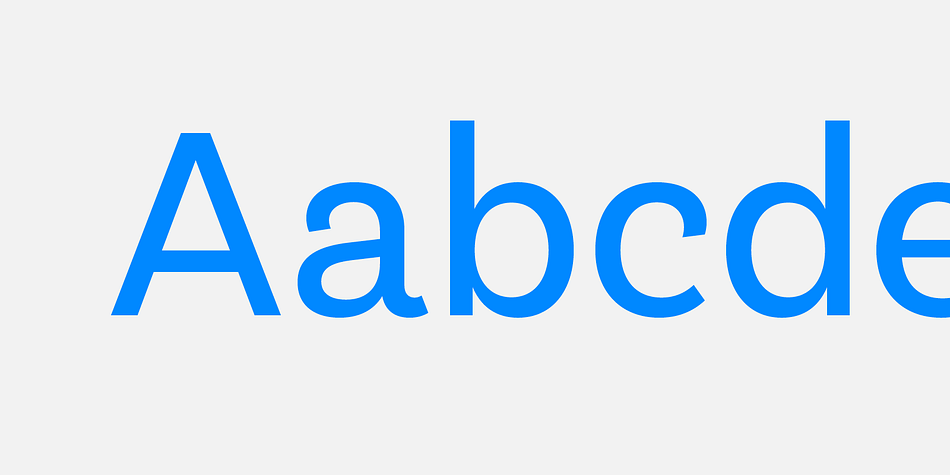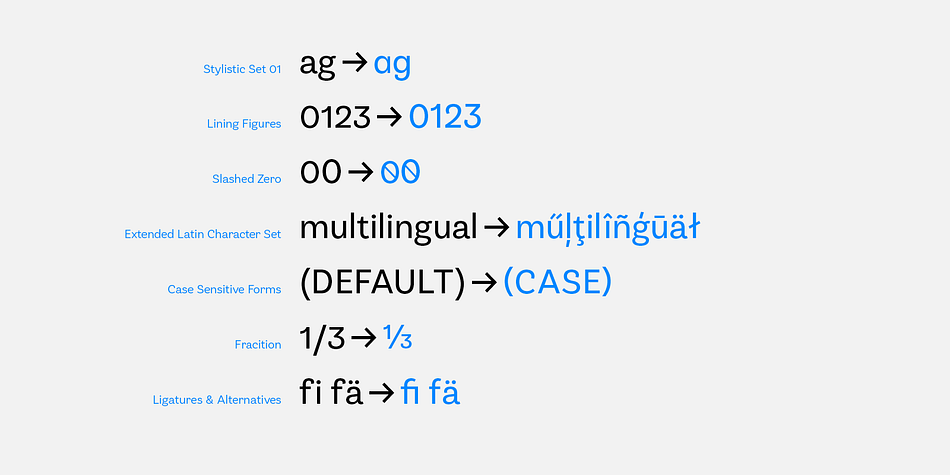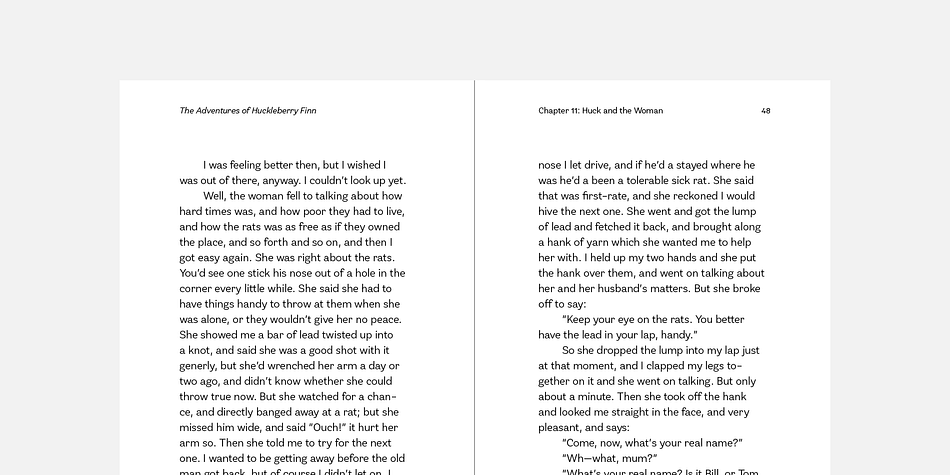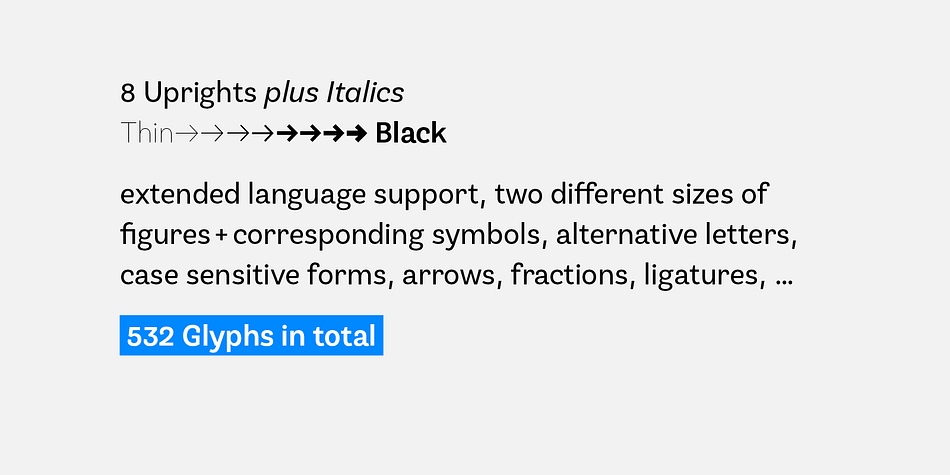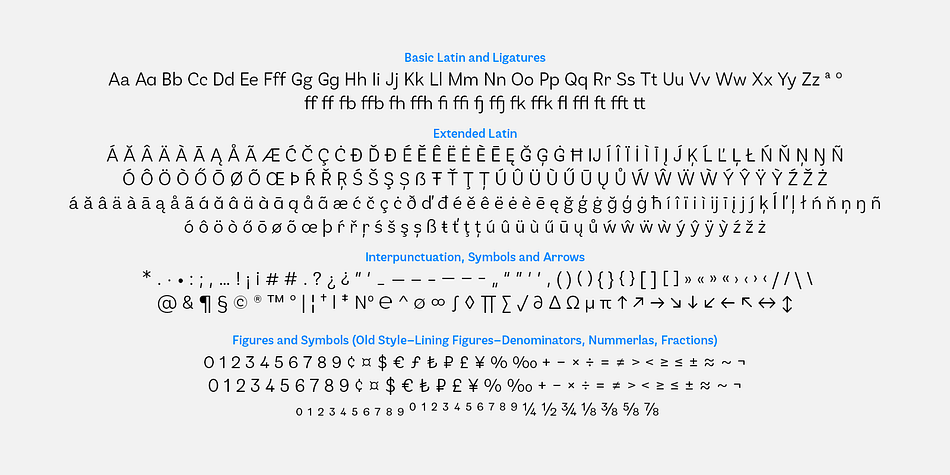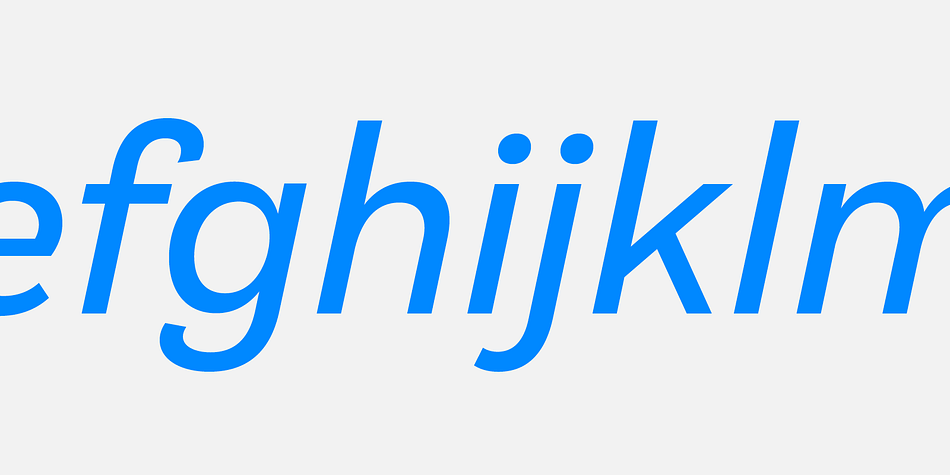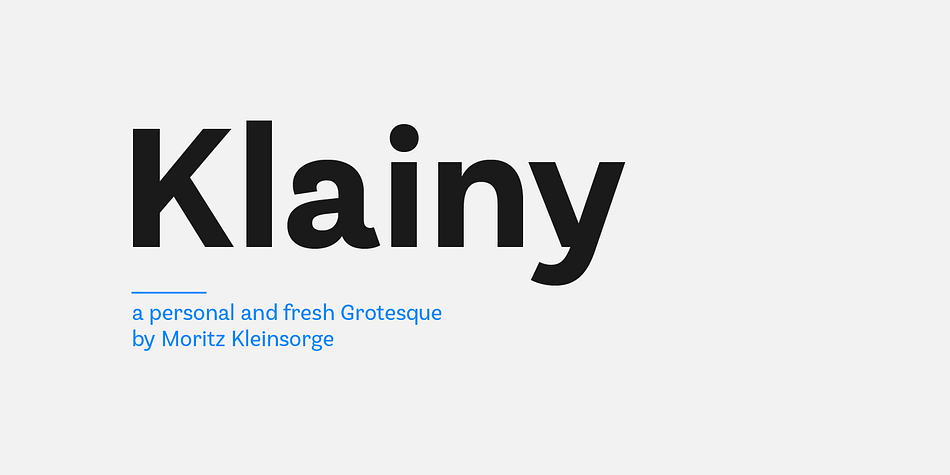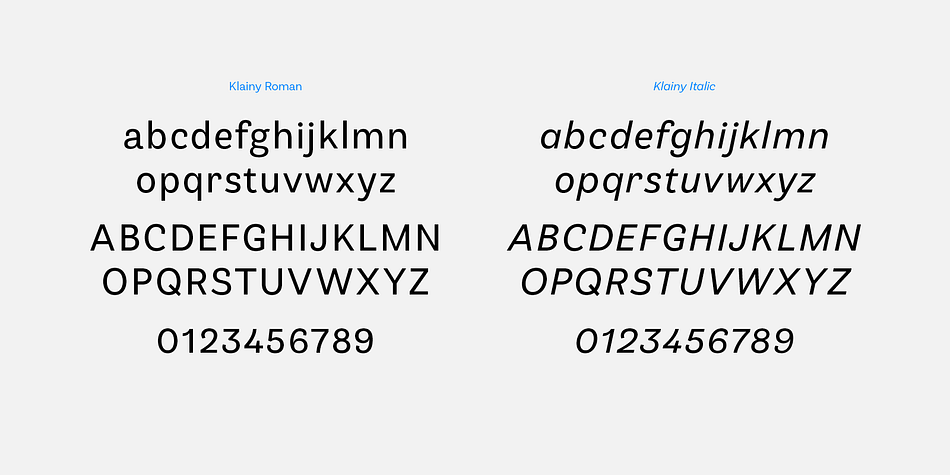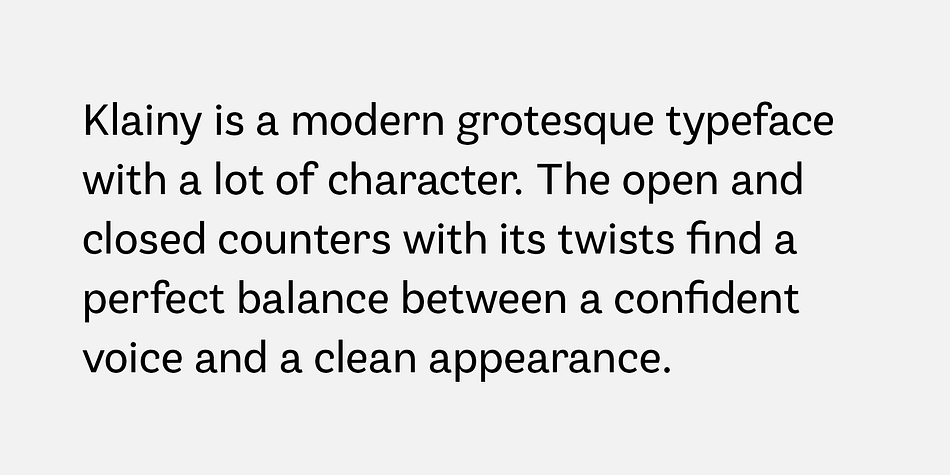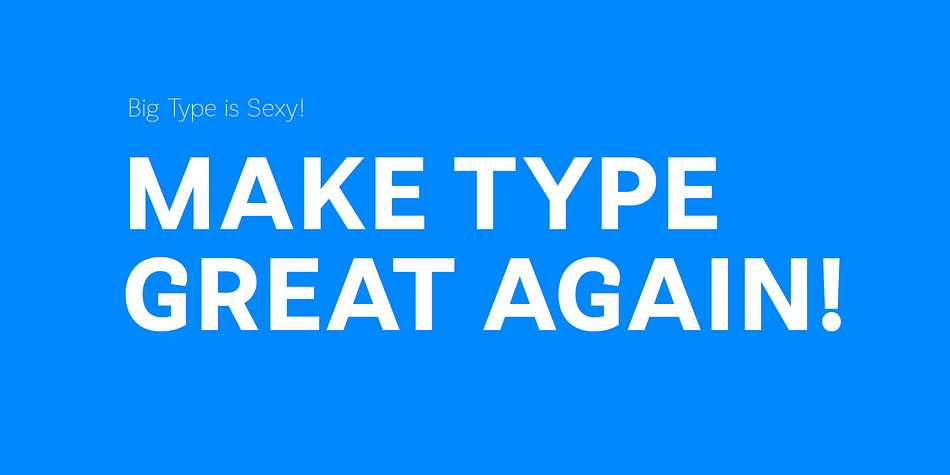
Designed by Moritz Kleinsorge, Klainy is a sans serif font family. This typeface has sixteen styles and was published by Moritz Kleinsorge.
If “Grotesque” mainly means “industrial, mechanical, anonymous typeface” to you, Klainy might redefine your image of the genre. Yes, it’s a Grotesque—but with a contemporary look and a lot of personality.
Klainy’s apertures are more closed at the top and more open at the bottom, creating an informal rhythm that sets Klainy apart: a confident, optimistic voice with a clean appearance. Terminals are subtly back-bent: these quaint “hooks” make Klainy a bit more personal, a bit friendlier. (You can find them in the a, c, f, and r.)
Just like its old-style Grotesque ancestors, Klainy is optimized for display sizes and short texts. There, its unobtrusive quirks can be wholly appreciated. However, the familiar Grotesque appearance makes sure that the typeface is comfortable to read in smaller sizes, as well. Use Klainy whenever a basically classic sans-serif typeface with a modern and individual twist is called for.
This font family comes in eight weights ranging from Thin to Black, each with a matching italic style. More than 500 glyphs and a bunch of Open Type Features make it a reliable companion for all of your projects. You can fine-tune the flavor of Klainy with Stylistic Alternates such as a one-story a and a two-story g. Their simple construction blends perfectly with the design concept of this typeface.
Klainy is a seasoned blue-collar worker that surprises you with wit and team spirit. It’ll be a great addition to your font library.